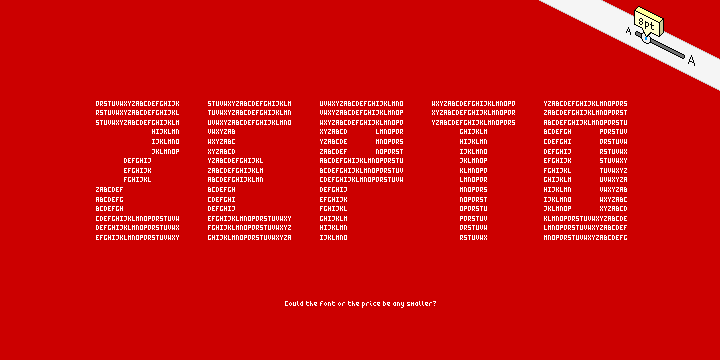
Pixel fonts are small, but Zepto’s smaller. Zepto is very “space efficient” and still retains legibility.
For optimal use, please turn font anti-aliasing off and set at a size of 8px with image resolution set to 72ppi.